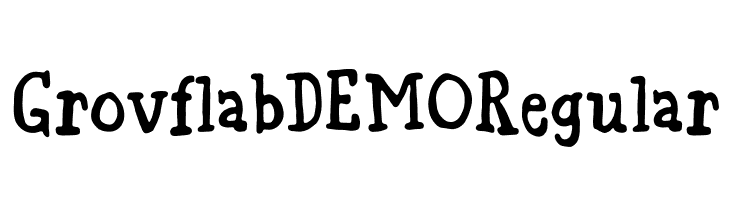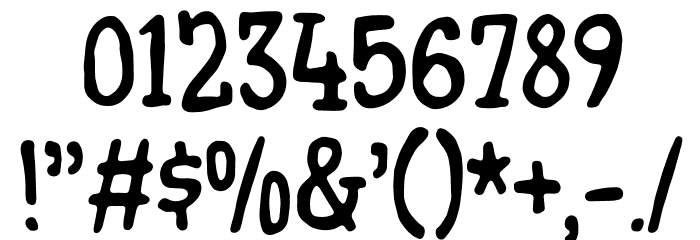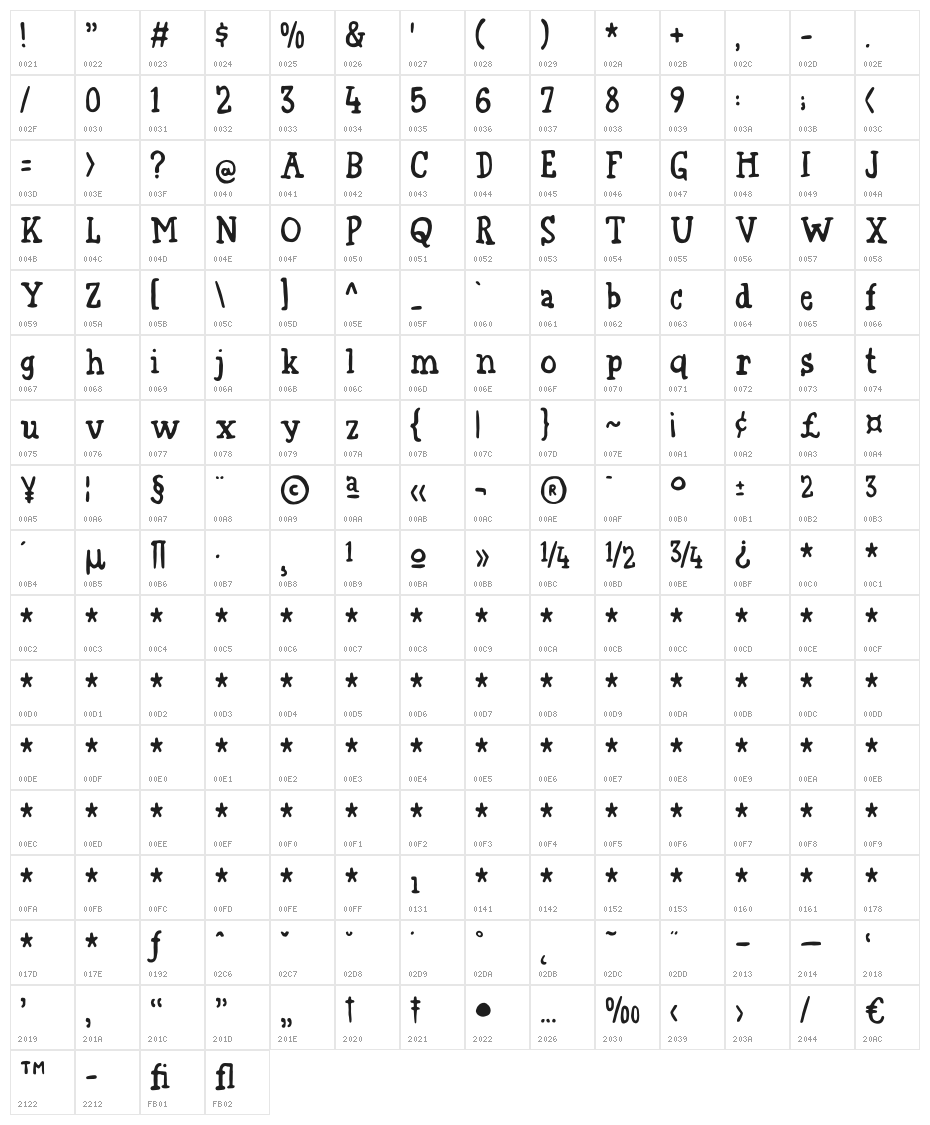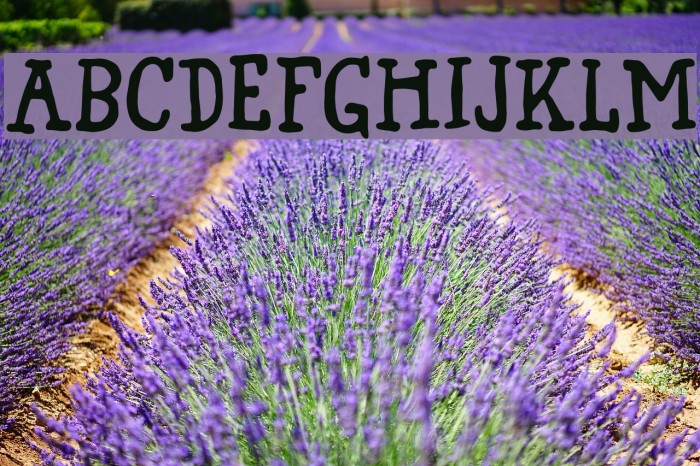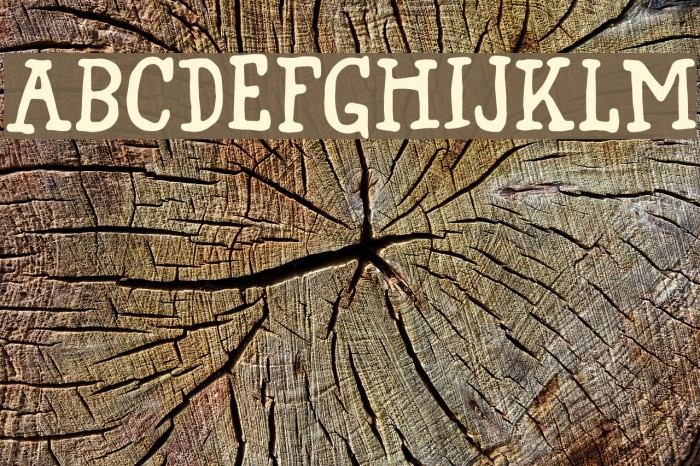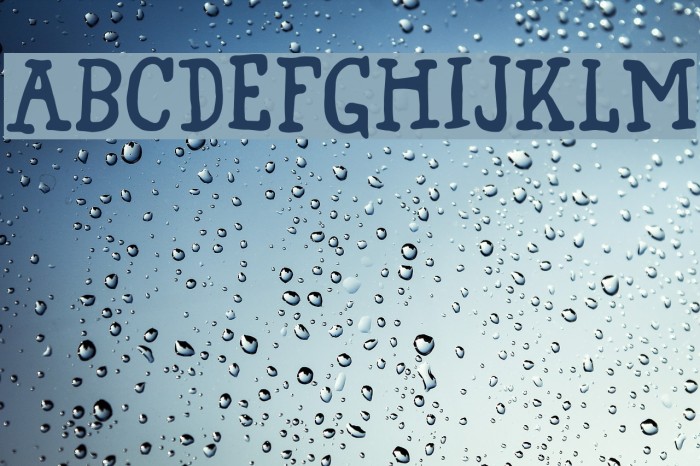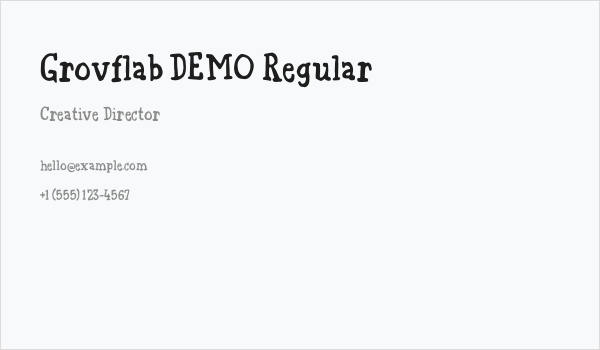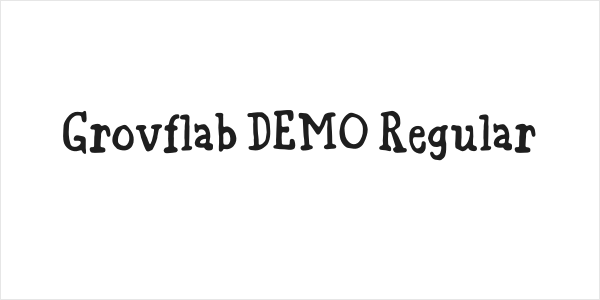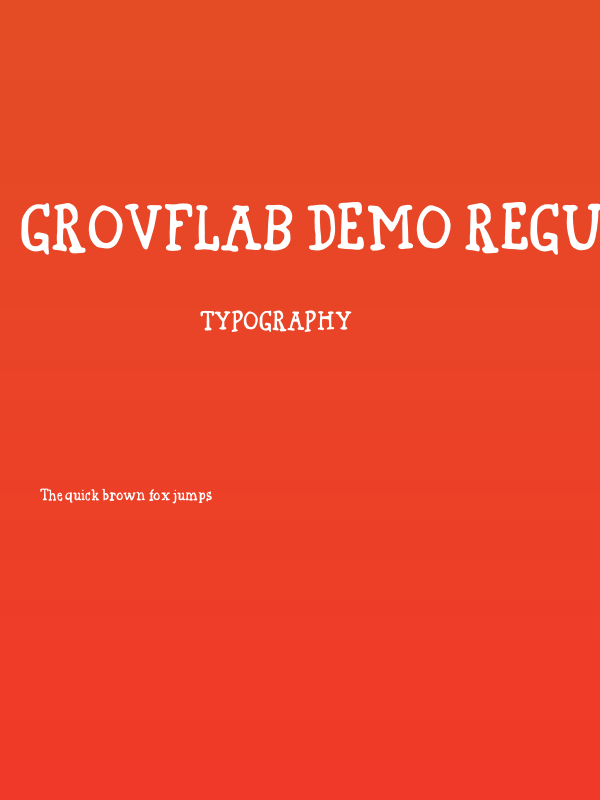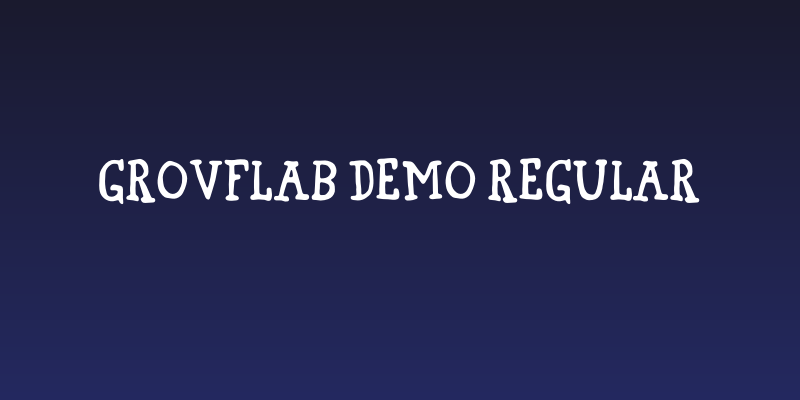
Grovflab DEMO Regular Font
Grovflab DEMO Regular Description
This font features a playful and bold style with a hand-drawn appearance. The characters are slightly irregular, giving it a whimsical and informal feel. The uppercase letters are robust and stand out with their thick strokes, while the lowercase letters maintain a consistent style that complements the uppercase. The numerals are clear and legible, with a unique flair that matches the overall aesthetic. Special characters are creatively designed, adding to the font's charm. This font is ideal for projects that require a fun and engaging look, such as children's books, posters, or creative branding.
Overall StyleWhimsical, Playful
Proposed ProjectsIdeal for children's books, playful posters, creative branding, and informal invitations.